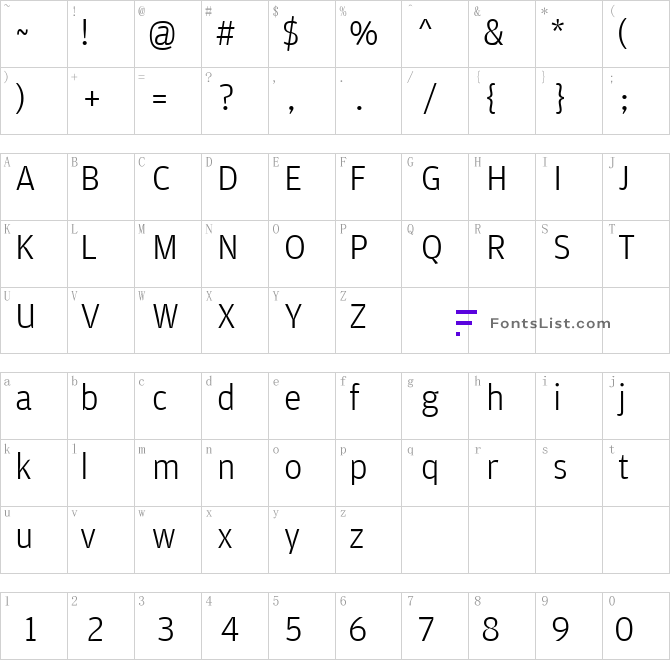
Amplitude-Light.ttf is a very beautiful artistic font, Amplitude-Light.ttf is widely used in the design and printing of various books and pictures,Amplitude-Light.ttf has a strong visual impact,Amplitude-Light.ttf is a commonly used font in newspapers, magazines and books, and is used in posters, e-commerce Poster design, store design, logo design, font design and other fields.Amplitude-Light.